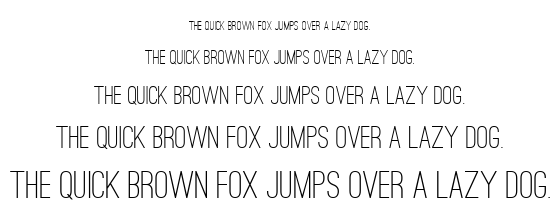
Ostrich Sans Font
A gorgeous modern sans-serif with a very long neck. With a whole slew of styles & weights:
Dashed (thin)
Rounded (medium)
Ultra light
Normal
Bold (race track style double lines)
Black
Tyler Finck